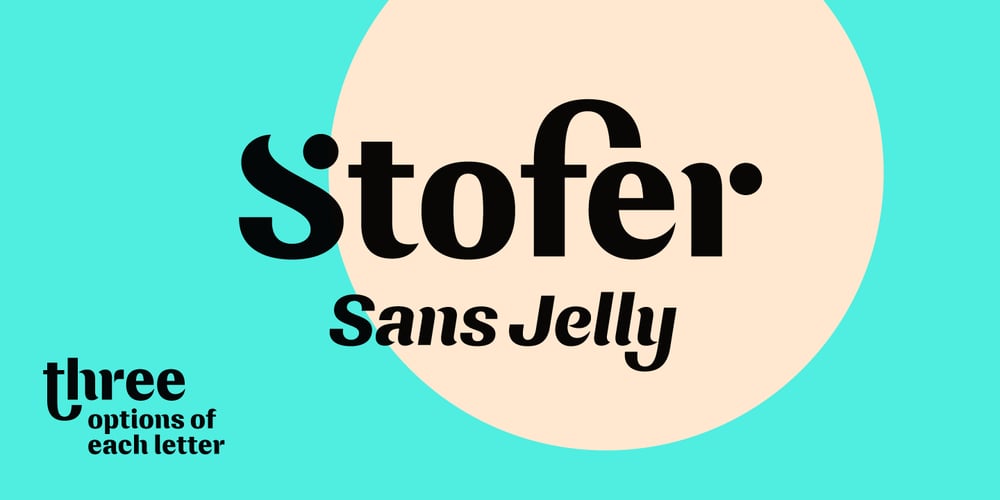
Stofer Font Family was designed by Roman Melikhov and published by Roman Melikhov. Stofer contains 2 styles and family package options. Stofer is a font for creating minimalistic logos, wordmarks, titles, taglines.Use stylistic alternates to emphasize separate letters in your text.You can use alternates in most major image editors, just find menu item Glyphs (Alternates) there.For any questions about the font please contact: arbuzzu@gmail.com